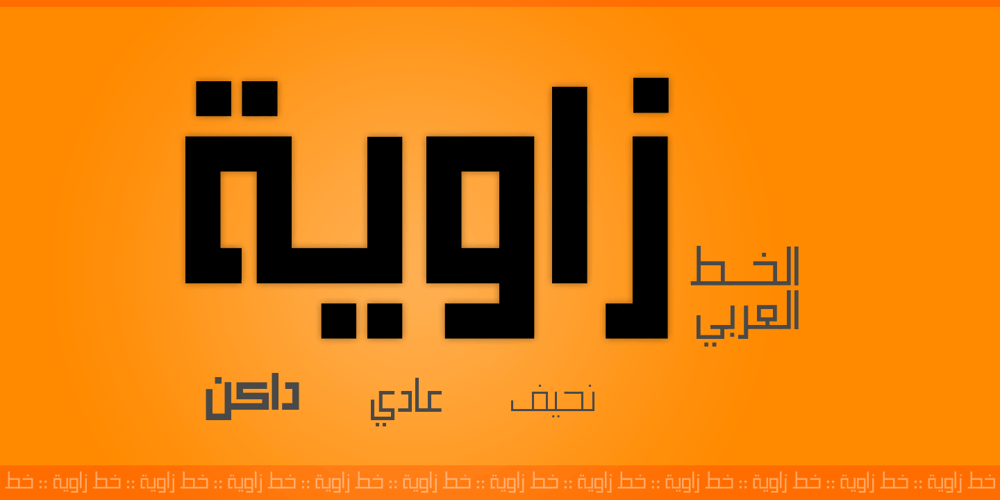
Zawiya Font Family was designed by Eyad Al-Samman and published by Eyad Al-Samman. Zawiya contains 3 styles and family package options. The word Zawiya in Arabic language means Angle in English language. “Zawiya” is a Kufic modern square-shaped Arabic typeface. The typeface has only right-angled angles which makes it full of open and closed squares and free from any curves or arches. This font comes in two different weights. I am originally an engineer and I have liked to draw geometric shapes since my early childhood. I decided to design a typeface that embodies both of the technical and artistic human that I have inside me. The main characteristic of “Zawiya” Typeface is in its modern and attractive right-angled and square-shaped styles for its all-Arabic characters. The character “Faa” is one of its most distinguished characters that I myself adore it so much. “Zawiya” Typeface is suitable for books’ covers, advertisement light boards, titles in magazines and newspapers, posters, greeting cards, cards, covers, satellite channels, exhibitions’ signboards and external or internal walls of malls or metro’s exits and entrances, geometric instruments and tools, technical devices, computers and laptops, IT and electric devices and also calculators. It is advisable to use the font in fields related to sciences such as geometry, mathematics, physics, chemistry, astronomy, industry, economy, and other fields. It can also decorate surfaces of calculators, geometric tools, rulers, pens, computers, cars, ships, trucks, and other related electric and electronic devices. It is sharp design qualifies it to be printed in public signs in streets, airports, hospitals, schools, malls, hotels, mosques, and other public places. It can also be used in titles for Arabic news and advertisements appeared in different Arabic and foreign satellite channels.